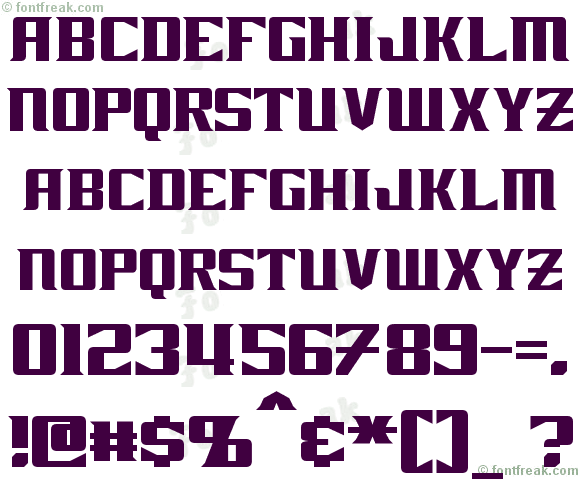
Zarathos
Zarathos Oblique
Zarathos, designed by Neale Davidson in 2012, is a striking display font that encapsulates a unique blend of modernity and elegance. This oblique typeface features a strong, slightly condensed structure that makes it stand out in any design. The strokes exhibit a balanced weight, characterized by a harmonious contrast that adds depth and visual interest. The spacing is well-considered, ensuring readability while maintaining an artistic flair. Zarathos showcases decorative elements that enhance its distinctive personality, making it ideal for projects that require a touch of sophistication.
This versatile font is perfect for a range of creative applications. Wedding invitations benefit from its refined aesthetics, adding a touch of class to a personal celebration. Movie posters can leverage Zarathos to create captivating titles that draw attention, while restaurant menus can utilize its stylish look to convey an upscale dining experience. Additionally, Zarathos is well-suited for branding purposes, allowing small business owners to establish a memorable identity. Content creators will also find it valuable for eye-catching headlines or graphics that require a bold statement.
Targeting graphic designers, small business owners, and content creators, Zarathos resonates with those who appreciate the balance of artistic expression and functionality in typography. The font's ability to enhance visual communication makes it a vital asset for anyone looking to elevate their design projects.
What sets Zarathos apart is its unique oblique style, which adds a dynamic quality to the text. This font stands out not just for its aesthetic appeal but also for its versatility across various mediums. With its freeware license, designers can enjoy a Zarathos font free download, making it an accessible choice for enhancing their creative endeavors.